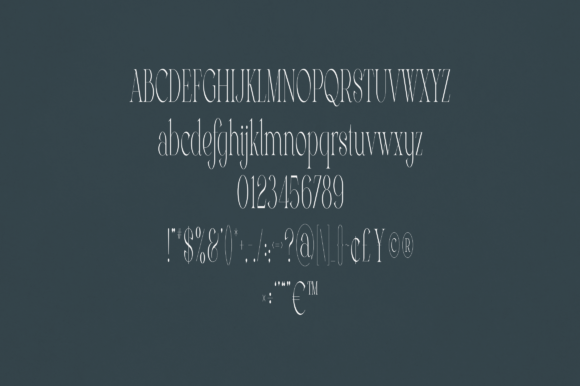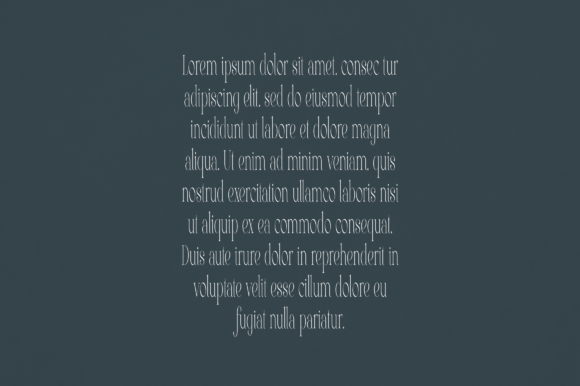
Discover the Elegance of Birch Font: Elevate Your Designs with Versatility and Style
In the world of typography, finding the perfect font that combines elegance, versatility, and uniqueness can be a daunting task. However, if you’re looking for a typeface that can instantly elevate your designs, look no further than the Birch Font. This exquisite font is designed to enchant every logo, branding, headline, or plain text, making it a must-have for designers and crafters alike.
What Makes Birch Font Stand Out?
Birch Font is not just another typeface; it’s an elegant and versatile font that can transform your typography into something truly unique. Its sophisticated design makes it perfect for a wide range of applications, from branding projects and home-ware designs to product packaging and magazine headers. Whether you’re working on a high-end luxury brand or a cozy home decor project, Birch Font is sure to add a touch of class and sophistication.
Endless Design Possibilities with Birch Font
One of the key benefits of Birch Font is its incredible versatility. This font can be used in various design contexts, including:
• Branding Projects: Create a lasting impression with a unique and memorable logo that stands out from the crowd.
• Home-Ware Designs: Add a touch of elegance to your home decor designs, from packaging to product labels.
• Product Packaging: Elevate your product packaging with a sophisticated and eye-catching font that captures the essence of your brand.
• Magazine Headers: Create stunning magazine headers that grab attention and set the tone for your content.
• Text Overlay: Use Birch Font as a stylish text overlay to any background image, adding depth and visual interest to your designs.
Why Choose Birch Font?
With so many fonts available, why should you choose Birch Font for your next project? Here are just a few reasons:
• Unique and Memorable: Birch Font is designed to be distinctive and memorable, ensuring your designs stand out in a crowded marketplace.
• Elegant and Sophisticated: This font exudes elegance and sophistication, making it perfect for high-end brands and luxury products.
• Versatile: Birch Font can be used in a wide range of design contexts, from digital to print.
• User-Friendly: This font is easy to read and works well in both large and small sizes, making it perfect for body text and headlines.
Tips for Using Birch Font Effectively
To get the most out of Birch Font, here are some tips for using it effectively in your designs:
• Pair with Complementary Fonts: Experiment with pairing Birch Font with complementary fonts to create visual interest and hierarchy.
• Play with Color: Take advantage of Birch Font’s elegant design by using it with a range of colors and textures.
• Experiment with Size: Don’t be afraid to experiment with different font sizes to create visual hierarchy and emphasis.
• Keep it Simple: Remember, sometimes less is more. Keep your design simple and let Birch Font’s elegance shine through.
Font Name Birch Font
Author vladfedotovv
In conclusion, Birch Font is an exceptional typeface that offers elegance, versatility, and uniqueness. Whether you’re a designer or crafter, this font is sure to elevate your designs and take your typography to the next level. With its wide range of applications and user-friendly design, Birch Font is a must-have for anyone looking to add a touch of sophistication to their projects. So why wait? Discover the elegance of Birch Font today and transform your designs with style and versatility.